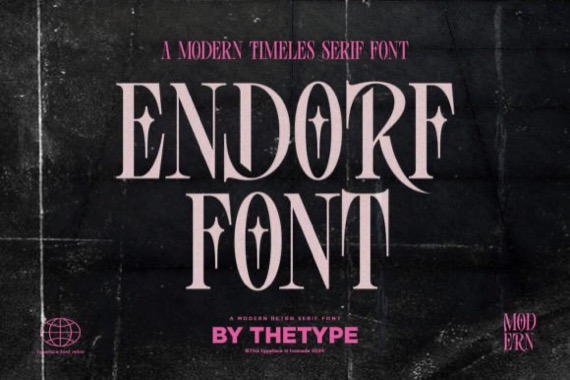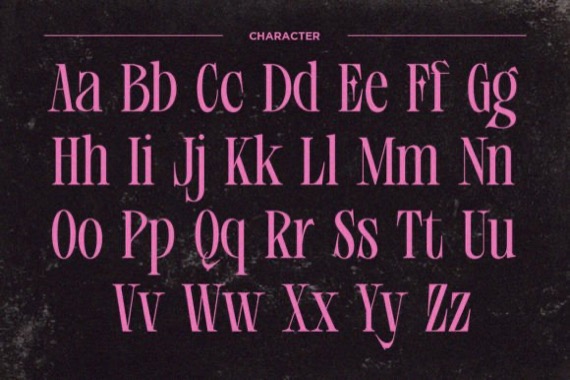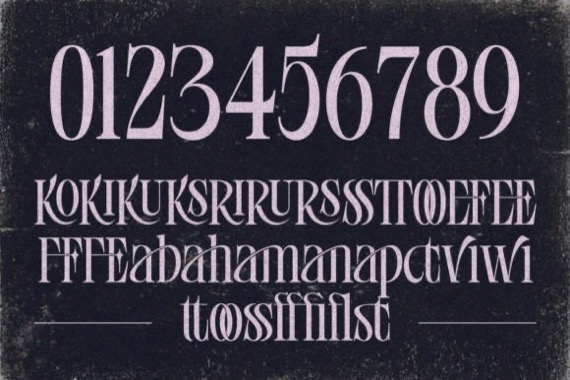
Endorf is a modern elegant serif font. This font looks very classy, clean, and casual. It is the best choice for creating eye catching logos, branding and quotes. Every letter has a unique and beautiful touch, which will make your design come alive!
Endorf Serif Font